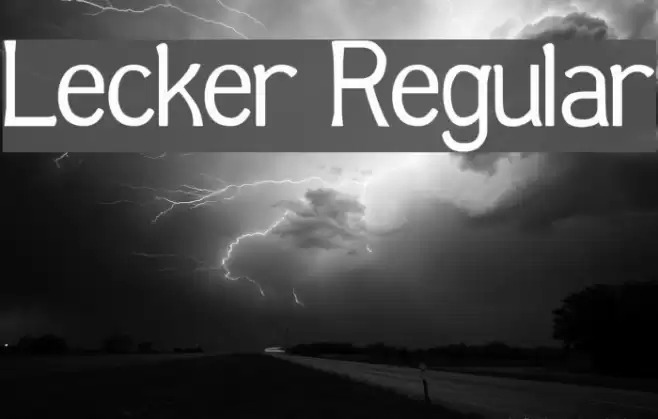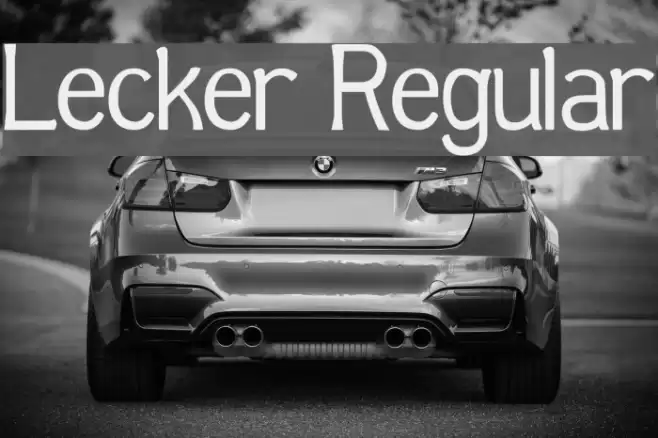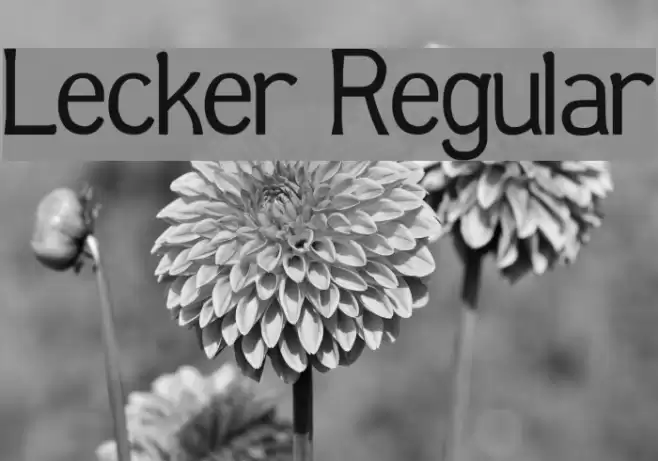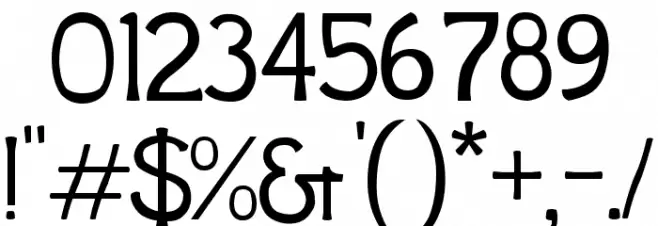
Lecker Regular Font
Lecker Regular Description
This font features a clean and modern design with a slightly rounded appearance, giving it a friendly and approachable feel. The characters are well-proportioned, with a consistent stroke width that maintains readability across different sizes. The uppercase letters are bold and assertive, while the lowercase letters have a more relaxed and casual look. The numerals are clear and distinct, making them easy to read. Special characters are thoughtfully designed to match the overall style, ensuring a cohesive appearance in any text. This font is versatile and can be used in a variety of design projects.
A modern, rounded font with a clean and approachable design from Uncategorized fonts.